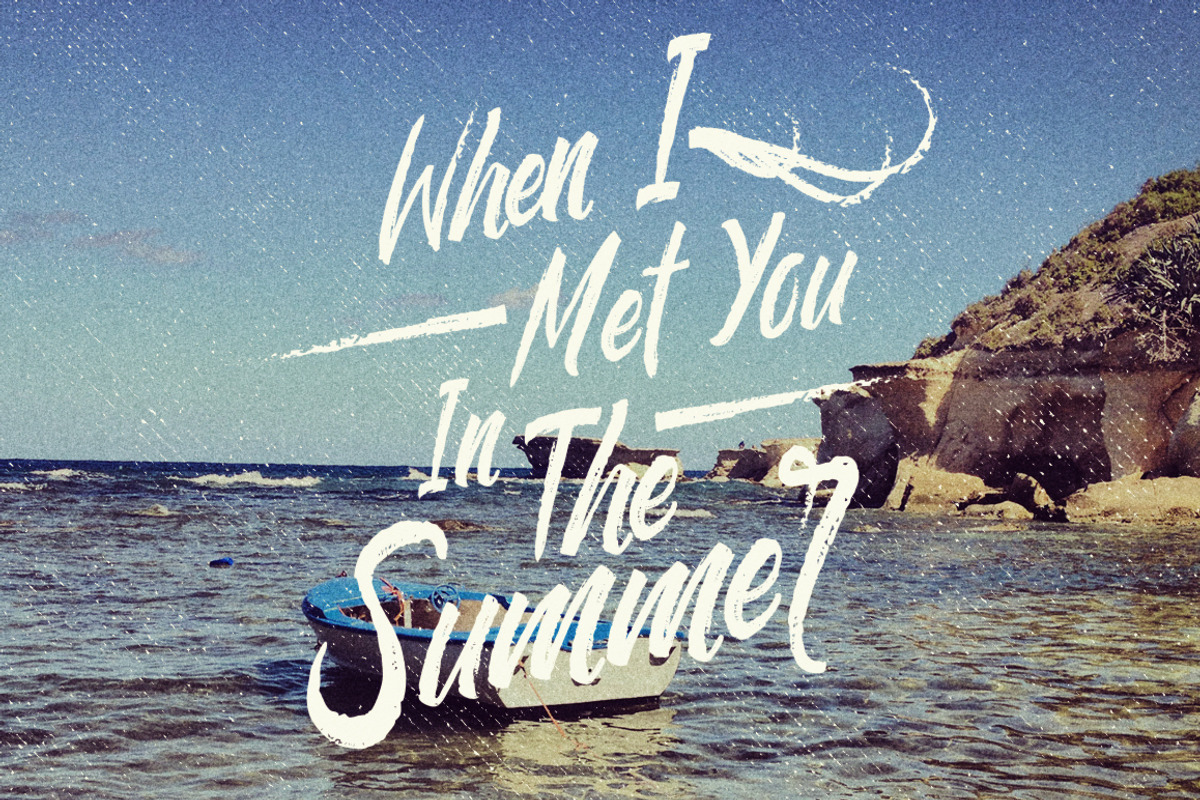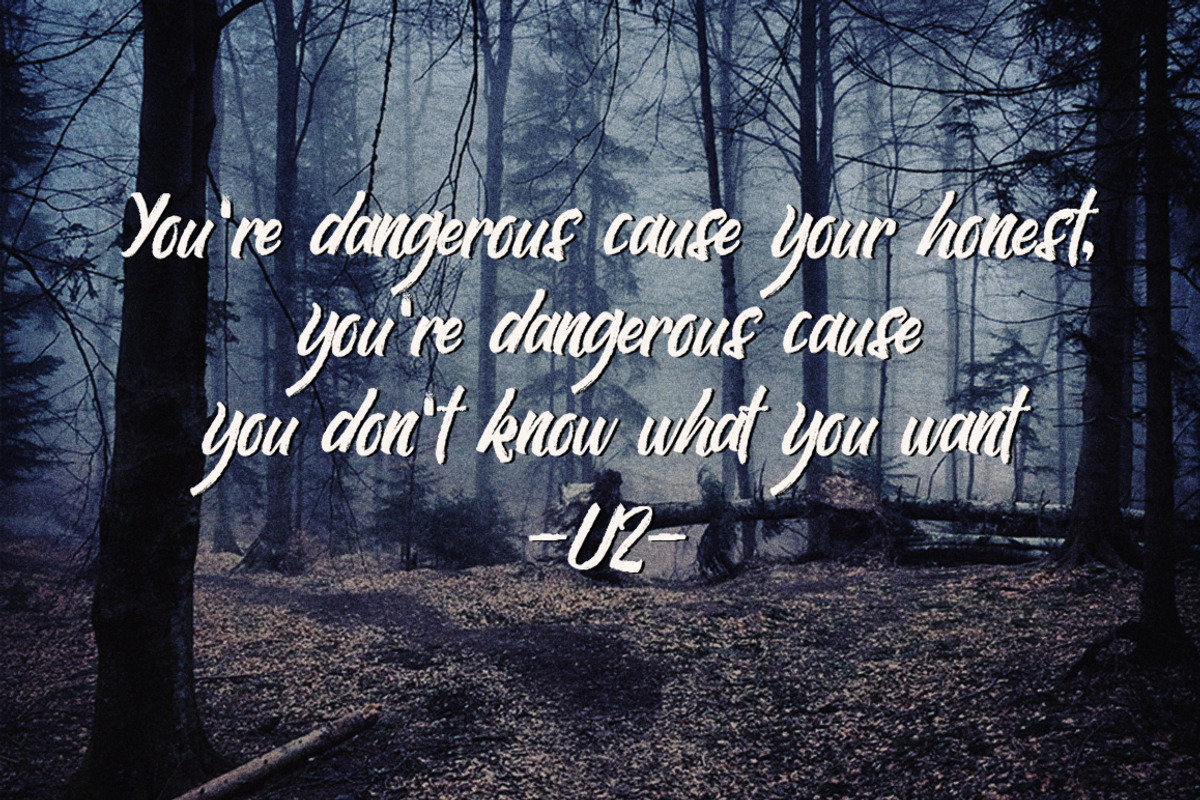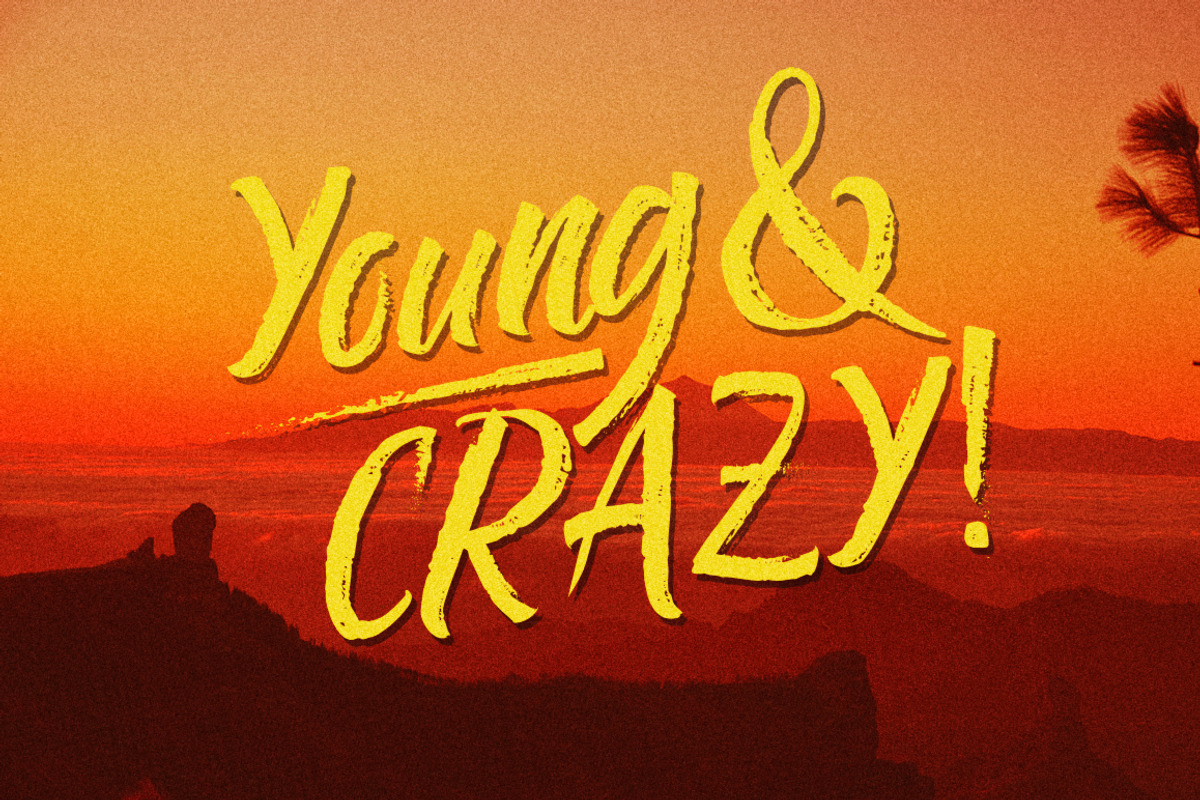
The Chalker Chalk lettering font
The Chalker Chalk lettering font by Konstantine Studio is a font selected for branding, posters, packaging, typography.
Why The Chalker Chalk lettering font is worth a look
The Chalker Chalk lettering font by Konstantine Studio fits naturally into Branding, posters, packaging, typography.